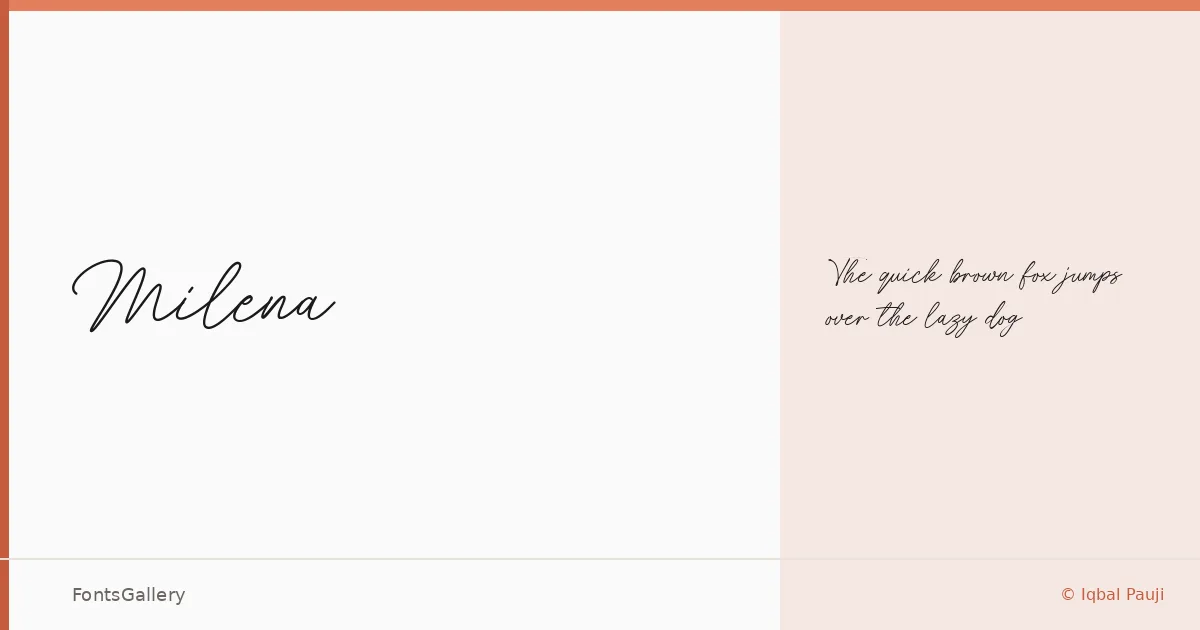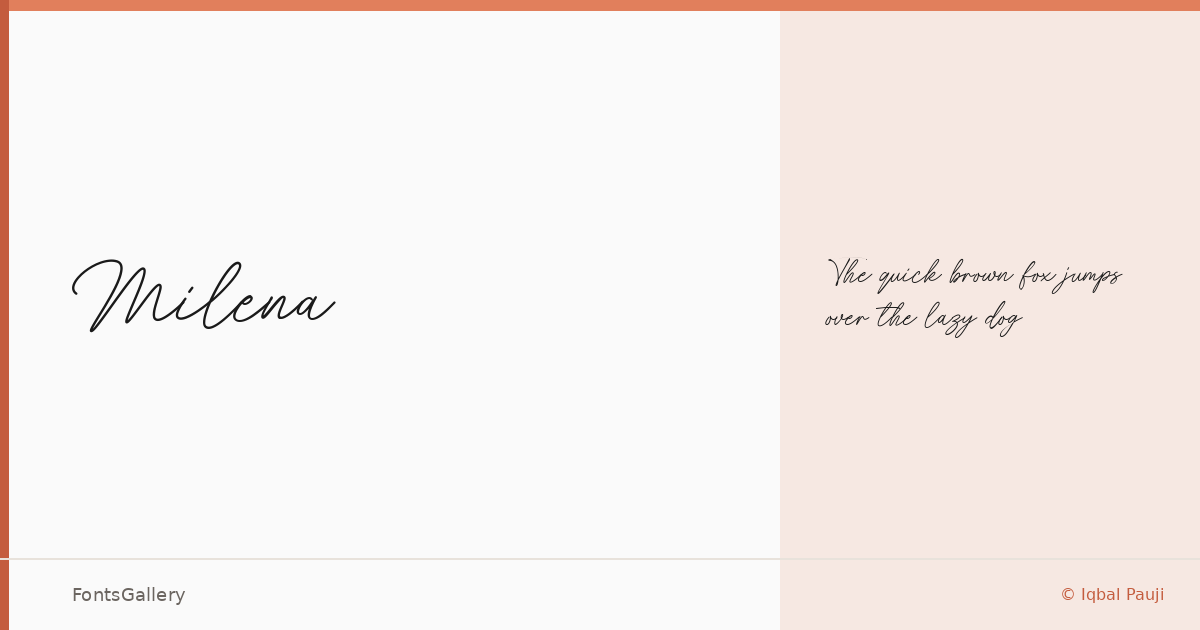
About Milena Font
There is a deliberate softness to this script — the kind of careful pen pressure and looping rhythm that reads as handcrafted rather than mechanical. Designed by Iqbal Pauji, Milena is a single-weight script family released in 2024, arriving as a TTF Regular that leans fully into romantic, classic calligraphic tradition.
The letterforms carry an elegant, flowing quality — connected strokes that feel unhurried and composed, suited to the kind of work where tone matters as much as legibility. The mood sits squarely in classic and romantic territory, which makes the single Regular cut work harder than it might seem: at display sizes, the script's personality comes through cleanly without needing additional weights to make its point.
It earns its keep on wedding stationery, invitation cards, and greeting cards where that handwritten warmth is exactly what the brief calls for — and it translates just as well to logo lockups and social media graphics where a script headline needs to feel considered rather than generic. When you need to balance it against a secondary face, the listed pairings cover useful ground: Canela and ABC Arizona bring editorial softness, Adobe Caslon Pro offers classical serif structure, Etna adds contrast, and Helvetica keeps things grounded in clean neutrality.